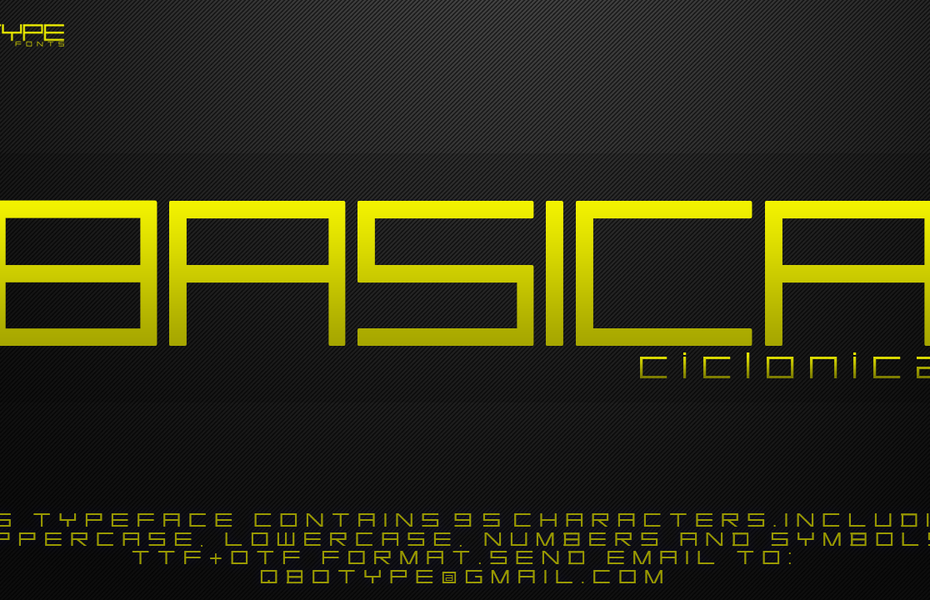
Creating a Storm with Typography
Have you ever been stuck in a creative rut, staring at a blank page or screen, waiting for inspiration to strike? For designers, finding the perfect font can be the spark that sets off a chain reaction of ideas. It’s that moment when the words start flowing, and the project begins to take shape. That’s exactly what happened when I discovered the Basica Ciclonica Font, a versatile and robust typeface designed to help designers bring their visions to life.
The Basica Ciclonica Font is a comprehensive font that contains 95 characters, including uppercase and lowercase letters, numbers, and symbols. Available in TTF and OTF formats, this font is perfect for designers who want to add a touch of elegance and sophistication to their projects. With its clean lines and modern design, the Basica Ciclonica Font is a valuable addition to any designer’s toolkit.
Basica Ciclonica Font Key Features
- Unique Characteristics: Basica Ciclonica Font features a unique blend of modern and traditional design elements, with clean lines, geometric shapes, and subtle nuances that give it a distinctive and sophisticated look.
- Legibility and Readability: The font is designed to be highly legible and readable, even at small font sizes, making it ideal for body text, headings, and other types of content where clarity is essential.
- Scalability: The font is highly scalable, allowing it to be easily resized and reconfigured to fit a wide range of design and layout requirements, from small text to large headings and titles.
Basica Ciclonica Font Review
Overall, I’m quite impressed with the Basica Ciclonica Font. ✨ Its clean and minimalist design makes it perfect for modern branding and web design projects. The font is highly legible and easy to read, even at small font sizes.
Here are some of the things that I think work well:
- ✨ High level of legibility: The font is designed to be easy to read, even at small sizes, making it perfect for digital applications.
- ✨ Clean and minimalist design: The font’s simple design makes it easy to pair with other fonts and won’t distract from the content.
- ✨ Wide character set: The font includes a wide range of characters, including Latin, Cyrillic, and Greek alphabets.
- ⚠️ Limited font weight options: The font only comes in a few weight options, which may limit its versatility.
- ⚠️ No italic or bold italic styles: The font does not include italic or bold italic styles, which may be a limitation for certain design projects.
- ⚠️ Limited support for non-Latin scripts: While the font includes a wide range of Latin characters, it may not support non-Latin scripts as well as other fonts.
Overall, I think the Basica Ciclonica Font is a solid choice for modern design projects. While it has some limitations, its clean design and high level of legibility make it a great option for digital applications.
Basica Ciclonica Font is a versatile font that can be used in a variety of applications, including:
1. Logo design: The font’s unique style makes it ideal for logo design.
2. Branding materials: Use the font consistently across your branding materials, such as business cards and letterheads.
3. Digital graphics: The font’s modern style makes it perfect for digital graphics and visual content.
The recommended font size range for Basica Ciclonica is between 10pt and 24pt. This range allows for optimal legibility and readability, making it suitable for a variety of design applications, including body text, headings, and titles.